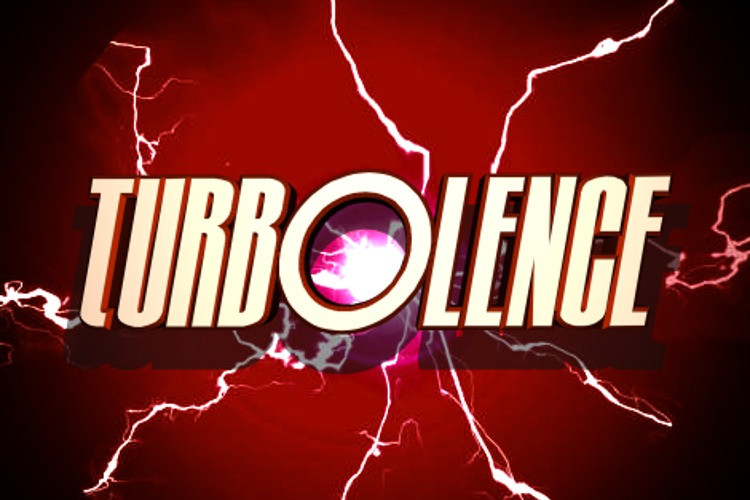
Turb 0lence Font
Turb 0lence Display Font, This bundle features strong, confident and powerful typefaces designed to work great with sports logos, club branding, apparel applications, labels and more.